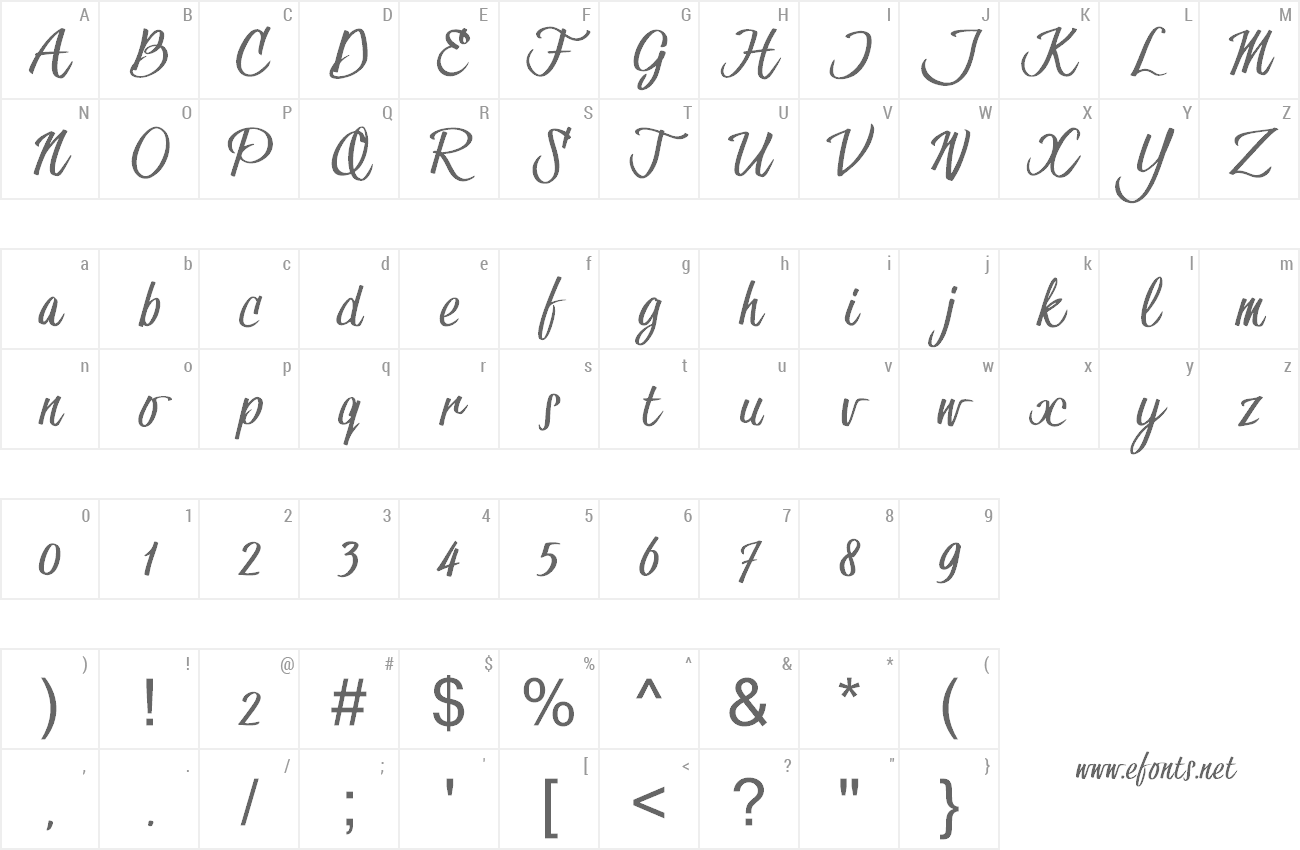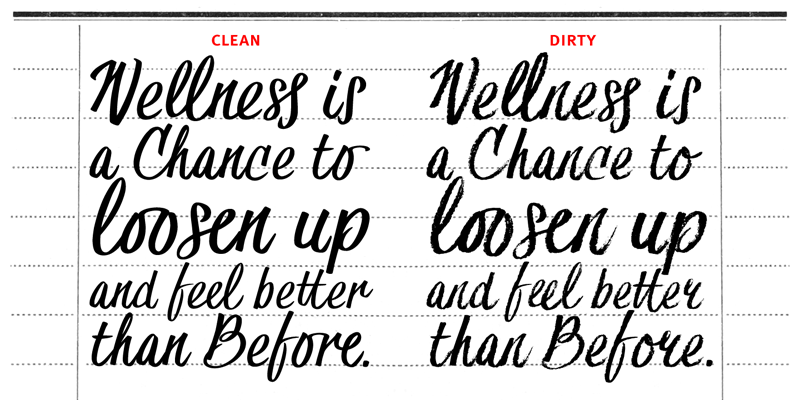
Preview and download Hesster Moffett Font. Created by JOEBOB graphics in Script Handwritten styles with Demo license.
| These are dressed down TRIAL versions of the Hesster Mofet font. The font comes in two styles: a CLEAN and smooth version and a DIRTY rough sketch version. The complete versions of the font come with a bunch of ligatures and a complete set of special signs and accents. You can buy your copy here: https://www.joebobgraphics.com/fonts/hesster-moffett/ |